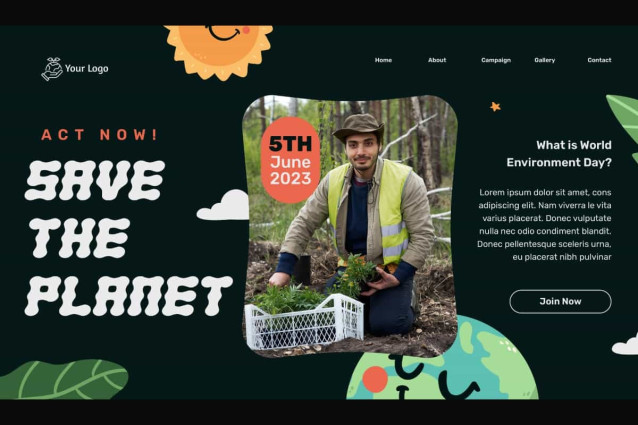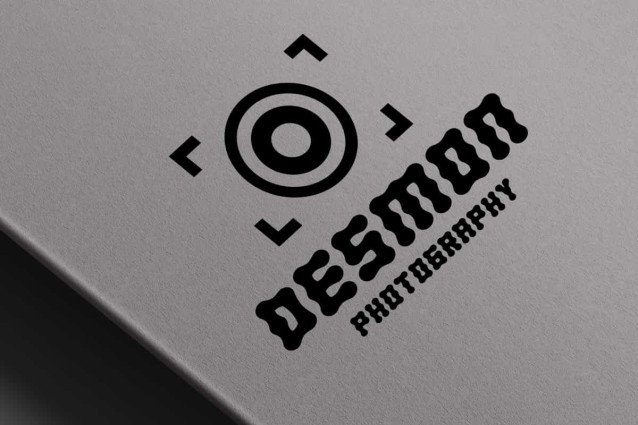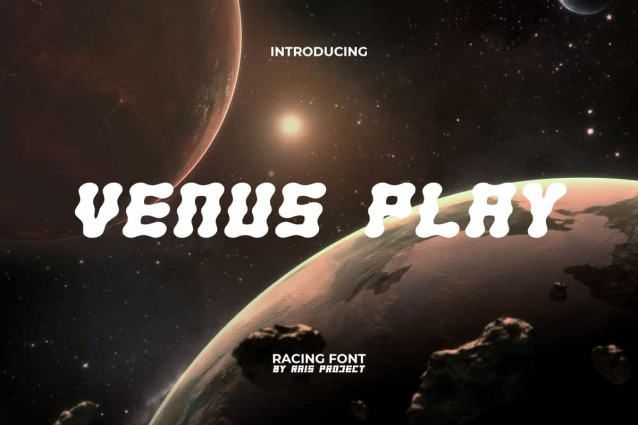
Venus Play Font
Venus Play Font is a uniquely space ship decorative font by RaisProject. The structure of this font is like an arrangement of bubbles, which makes it look unique. It will look good on label, poster, custom design, stationery, signage, invitation, poster, quotes, web, and more!
Venus Play Font includes a full set of ALL CAPS for Uppercase and Lowercase Letters, Numerals, and large range of Punctuation. This unique font will steal the attention of many people and will be suitable for various industries, such as fashion, game, sports, movie, cafe, event or festival, printing, publishing, etc.